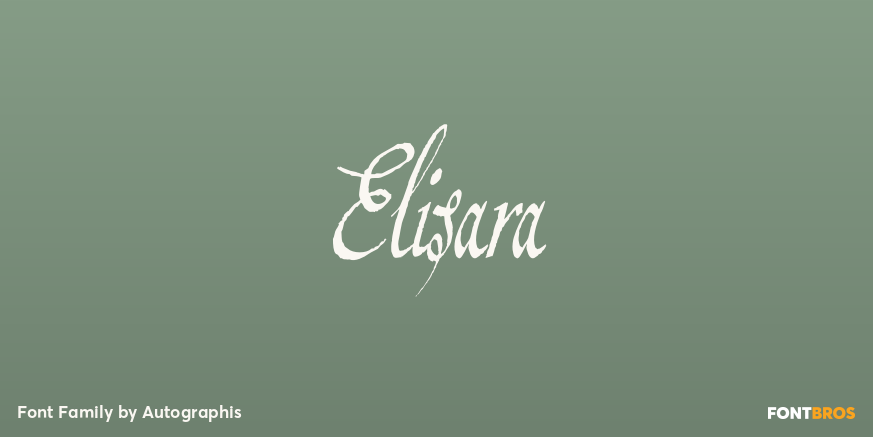
Elisara
About Elisara
Elisara is a joining high-contrast-script, with extreme ascenders and descenders; the capital letters and some lower case letters are highly ornamental with swirls galore. The font can be used together (mixed) with Constanza and Dalia.